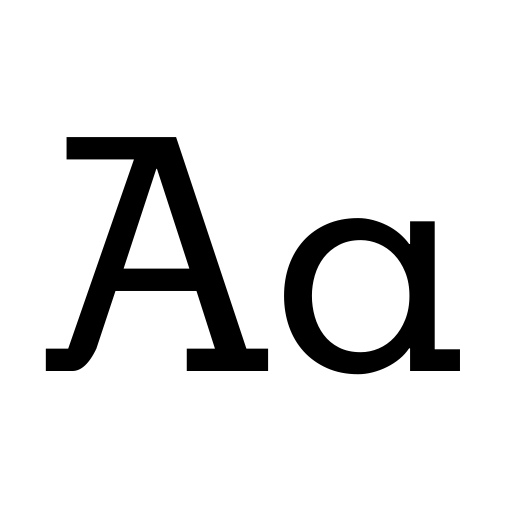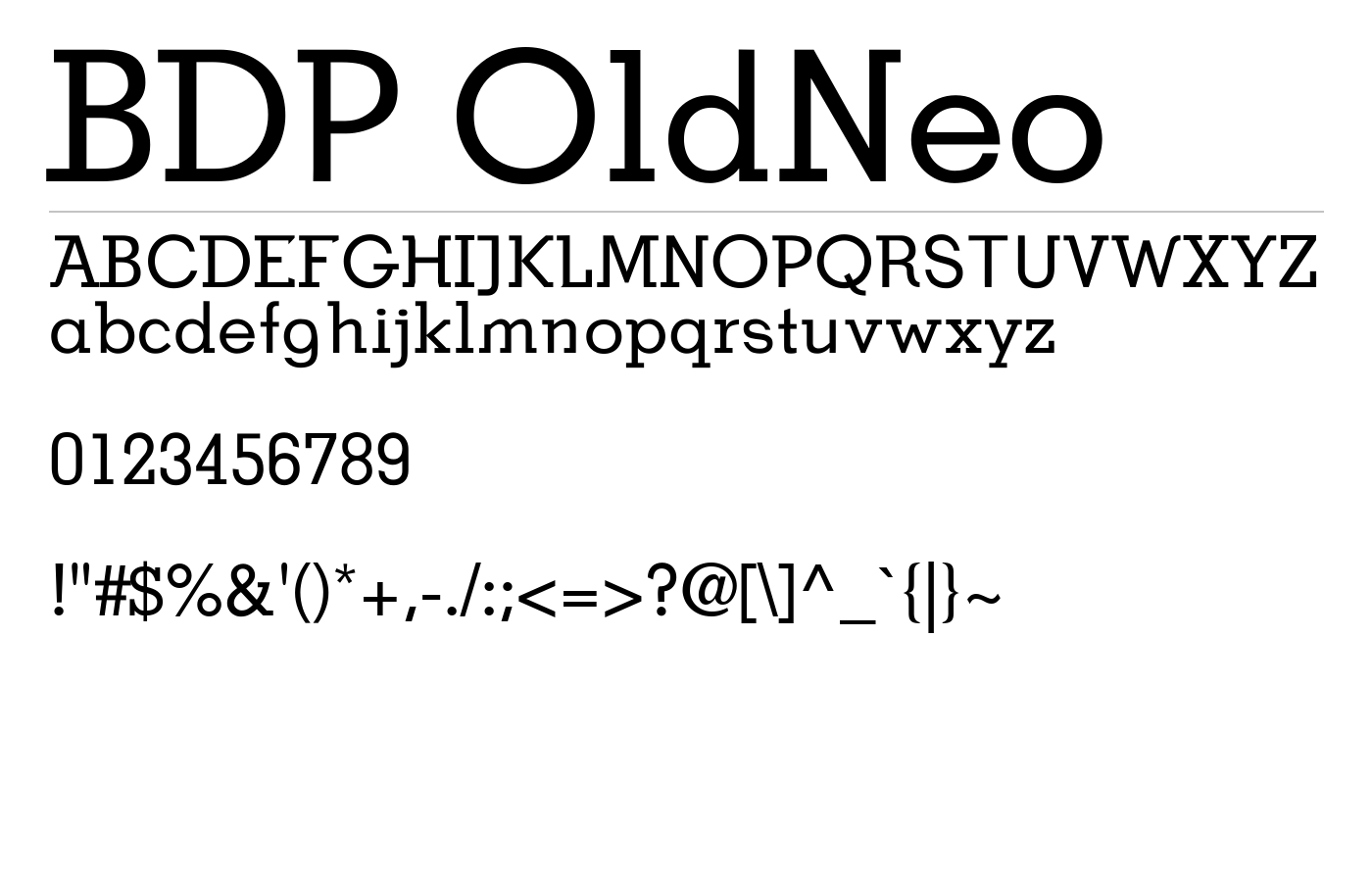
BDP OldNeo is a refined serif font blending vintage charm with modern clarity, featuring medium contrast strokes and thin, bracketed serifs. Its balanced x-height and rounded letterforms create an elegant yet approachable feel, making it ideal for editorial design, branding, and headlines where a touch of classic sophistication is desired. This font works well in contexts that seek a professional, timeless appearance without sacrificing readability.
BDP OldNeo Font
About BDP OldNeo Font
| Designer | Álvaro Thomáz |